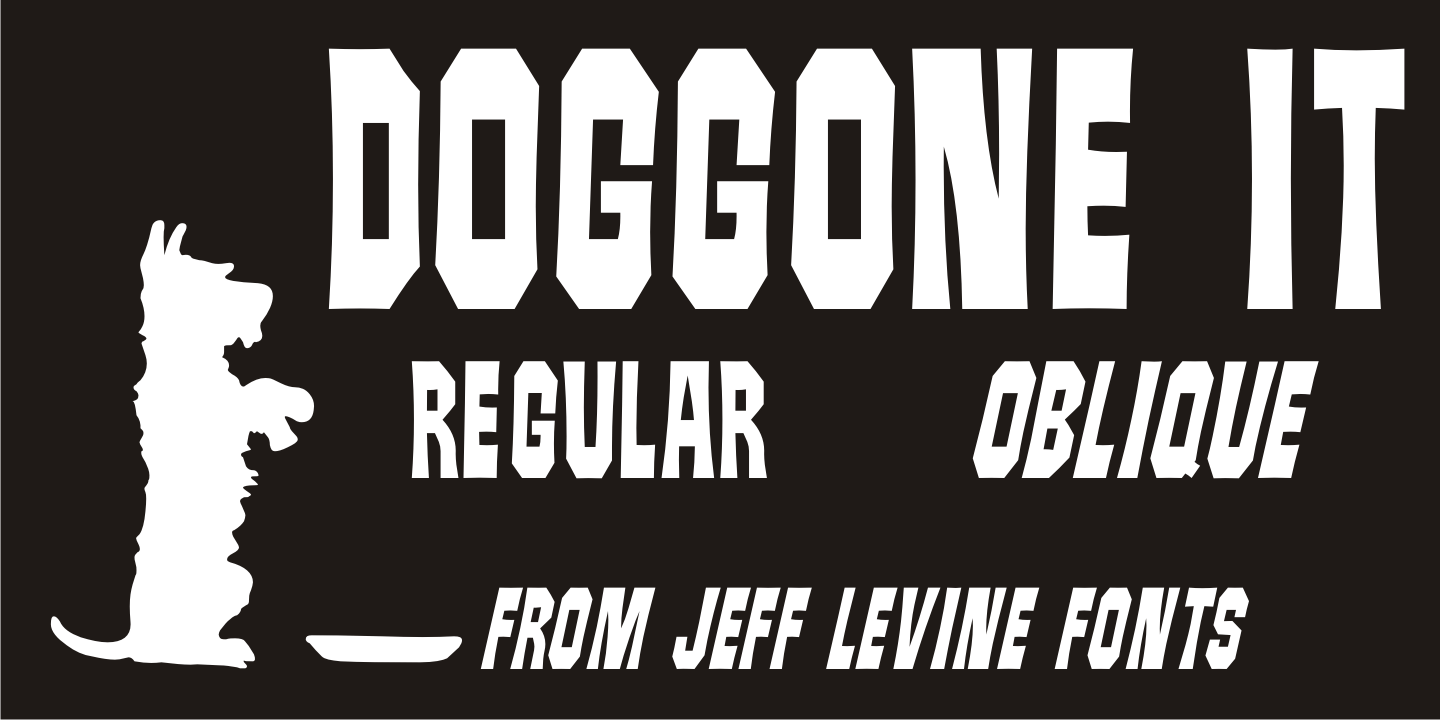
Doggone It
The hand lettering for the movie posters and collateral items for the 1962 film 'Mondo Cane” inspired Doggone It JNL, which is available in both regular and oblique versions.